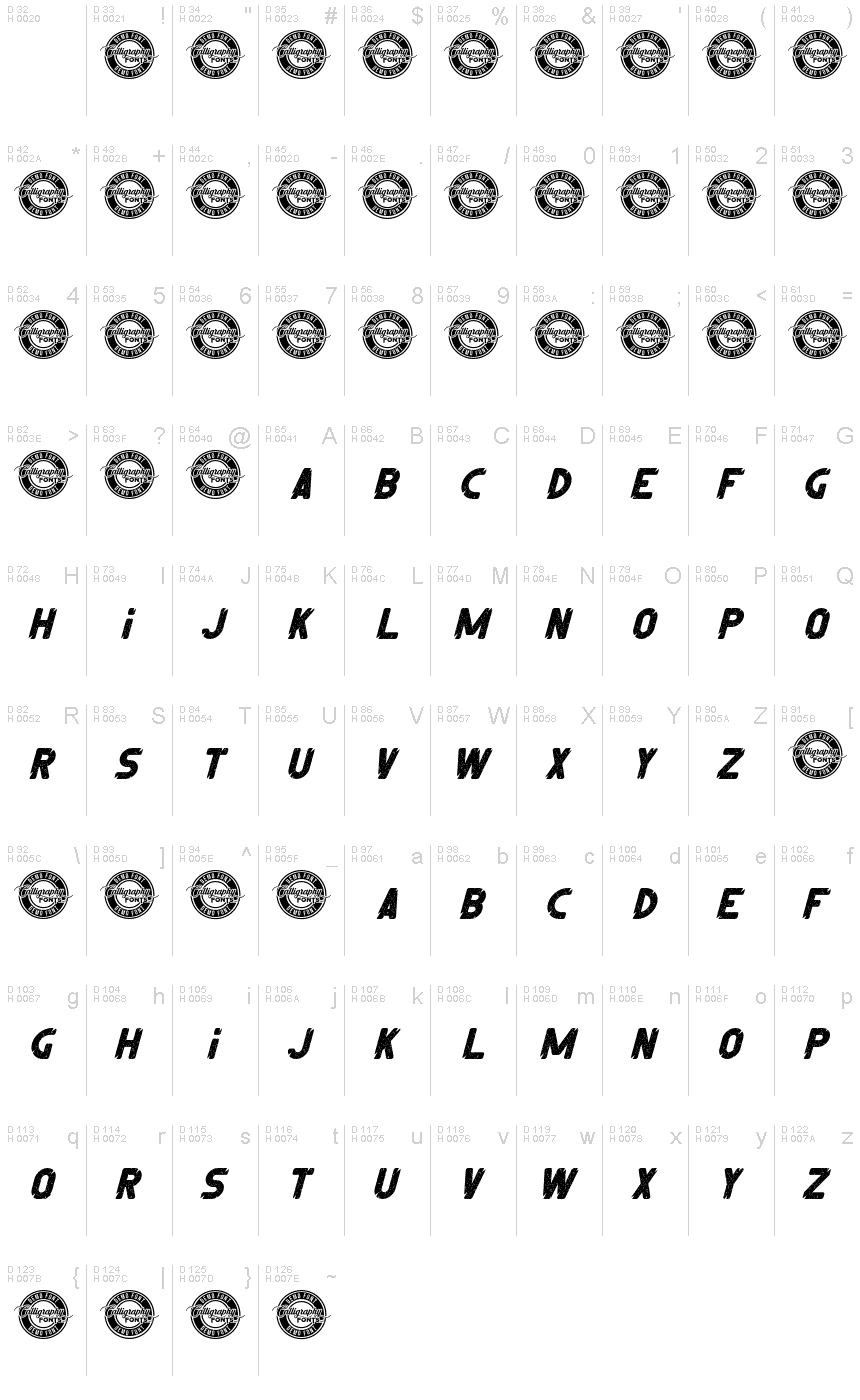
Mango Bite Demo Italic
Mango Bite Italic is an edgy display font designed by Calligraphy Fonts. Its eroded style gives it a rough, textured look that makes it perfect for projects that need a touch of rebellion. The bold weight and semi-condensed width make it ideal for headlines, posters, and branding materials. Use Mango Bite Italic to add an unexpected twist to your designs – its unique character will help your project stand out from the crowd. Whether you're working on a new album cover or promoting an upcoming event, Mango Bite Italic is the perfect typeface for any project that needs to make a statement.